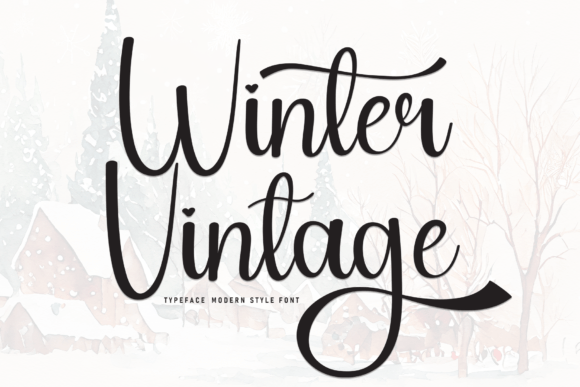
Introducing Winter Vintage Font, the ultimate choice for adding a touch of elegance and charm to your design projects! Created by the talented William Jhordy, this script font is everything you need to make your wedding invitations, cards, and other designs truly unforgettable.
With Winter Vintage Font, you can embrace the beauty of handwritten fonts that exude warmth and friendliness. Its delicate and graceful strokes are guaranteed to captivate anyone who lays eyes on it. Whether you're a bride-to-be, a graphic designer, or simply someone who appreciates the art of typography, this font is a must-have in your collection.
Are you looking to create enchanting wedding invitations that reflect your unique personality and love story? Look no further! Winter Vintage Font is here to make your dreams come true. Its whimsical and romantic style will transport your guests to a world of love and joy, setting the perfect tone for your special day.
But don't limit yourself to just weddings! Winter Vintage Font is incredibly versatile, making it suitable for various design projects. Need to add a playful touch to a birthday card? Want to create eye-catching headlines for your blog? This font has got you covered! Its versatility knows no bounds, allowing you to explore endless possibilities.
What sets Winter Vintage Font apart from the rest is its ability to evoke emotions and create a connection with your audience. Its handwritten nature brings a sense of authenticity and intimacy, making your designs feel personal and heartfelt. Imagine the delight on your loved ones' faces when they receive a card or invitation crafted with this font!